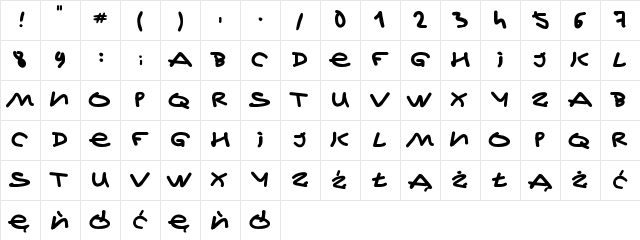
Jeff Kovalsky Regular Free Font
Jeff Kovalsky Regular
Foundry: High-Logic
Designer: High-Logic - Erwin Denissen 1999
Design Context for Jeff Kovalsky
Jeff Kovalsky is a composed and adaptable typeface that performs quietly and consistently across a wide range of design contexts.